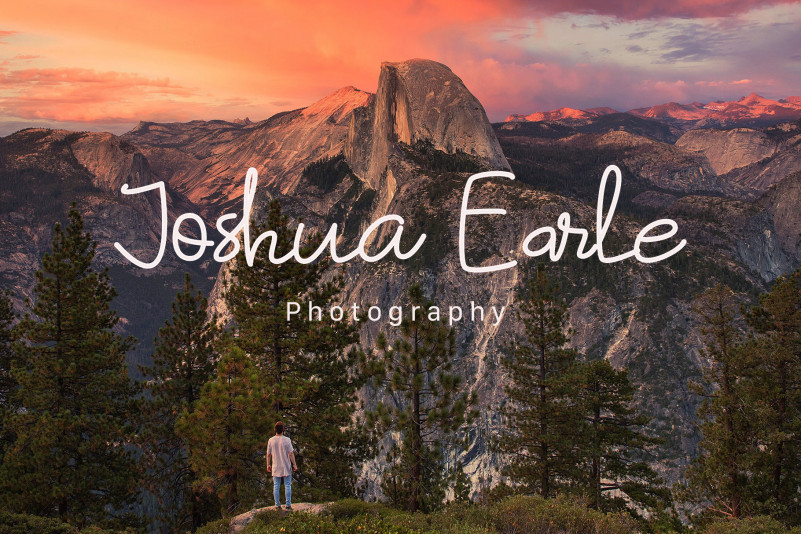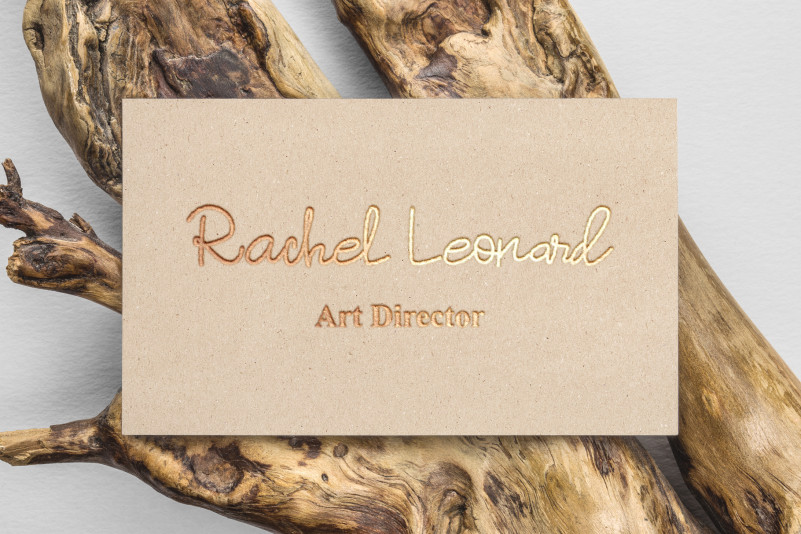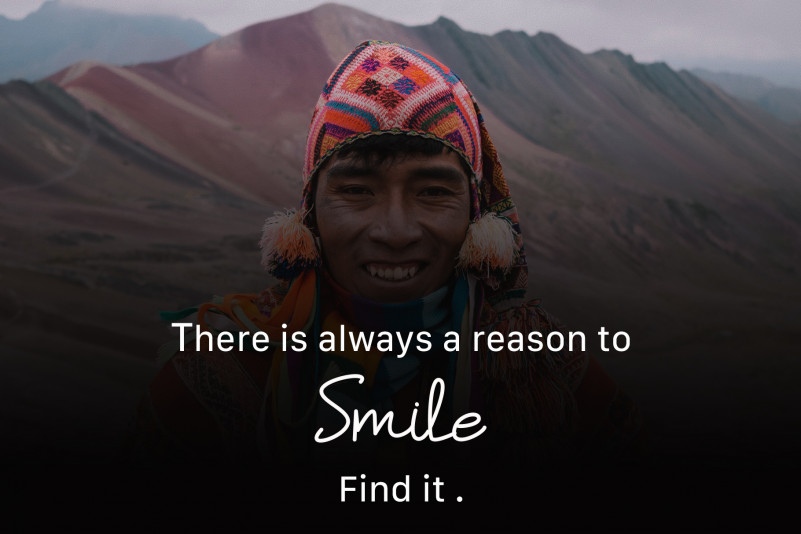
Hello, Hummingbird Handwritten Font is a handwritten signature script with a natural & simply style.This collection of scripts is perfect for personal branding. this works well for many applications. Everything from personal branding, wedding invitations, social media posts, advertisements, product packaging, product designs, label, photography, watermark, invitation, stationery and any projects that need handwriting taste.